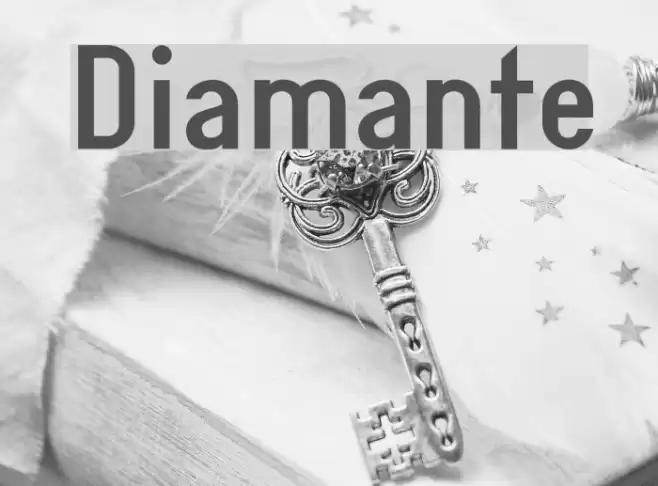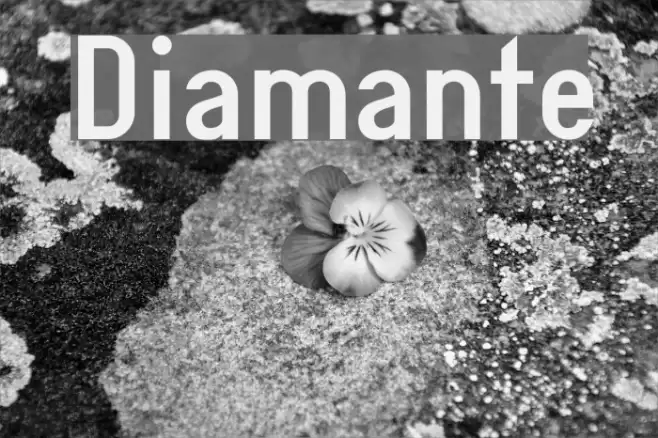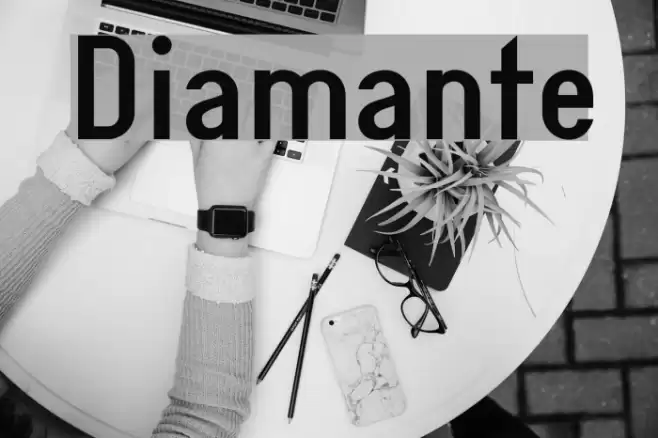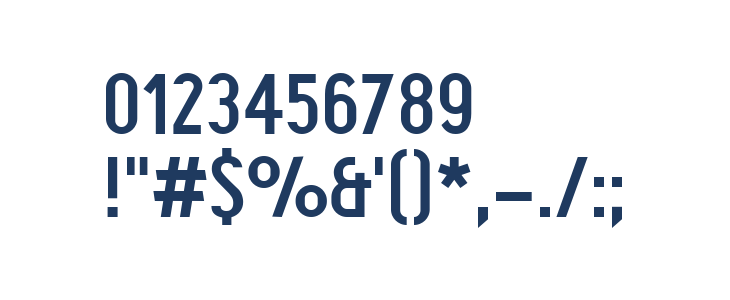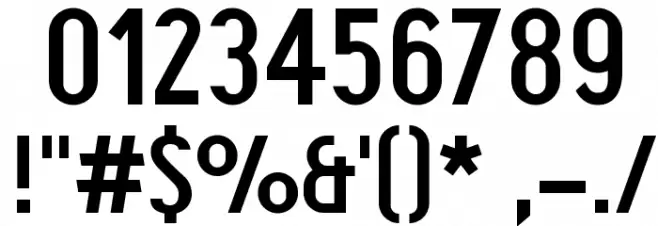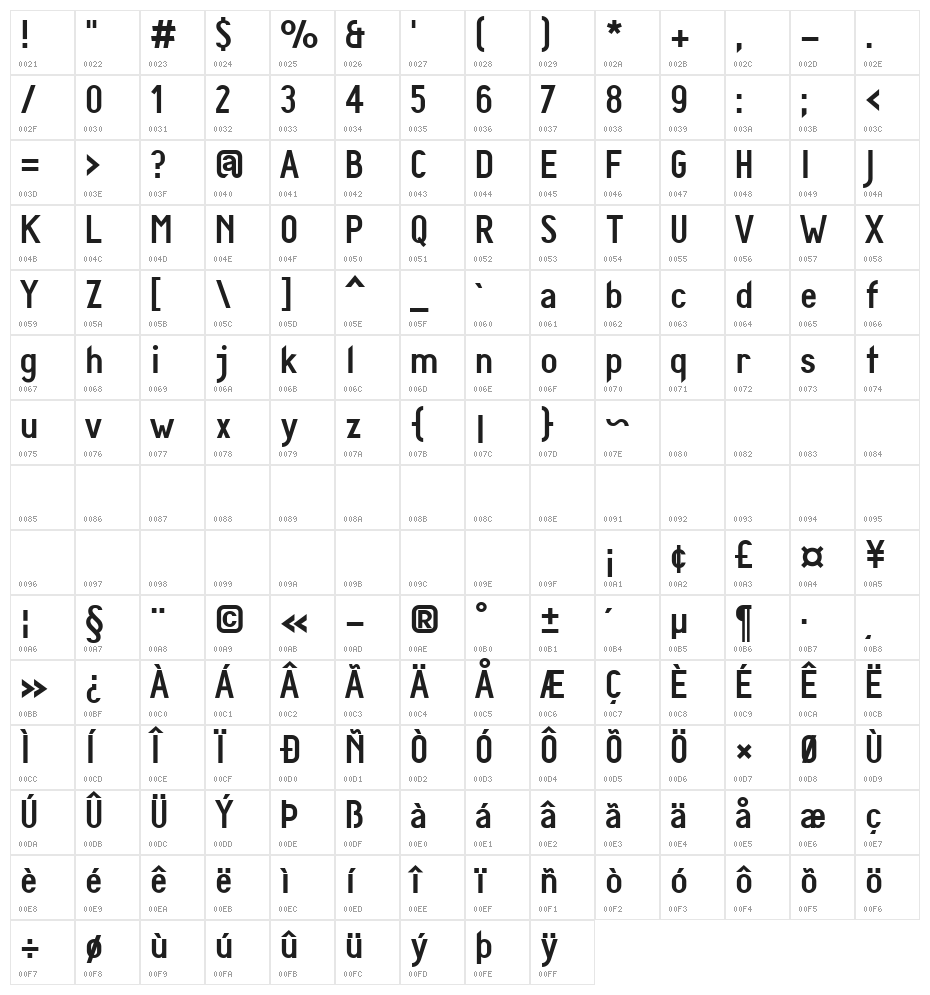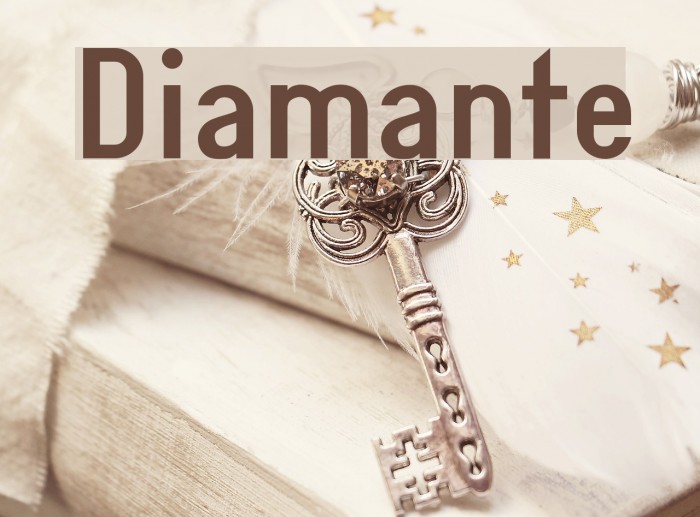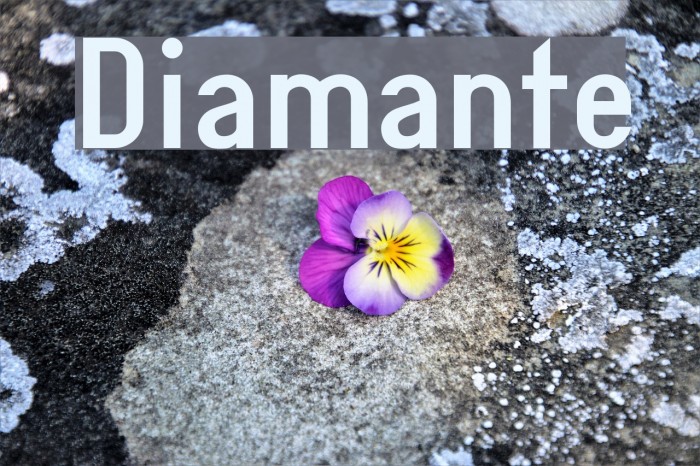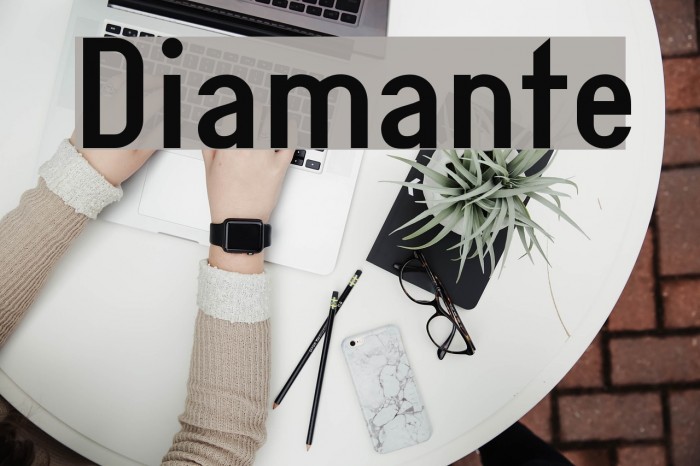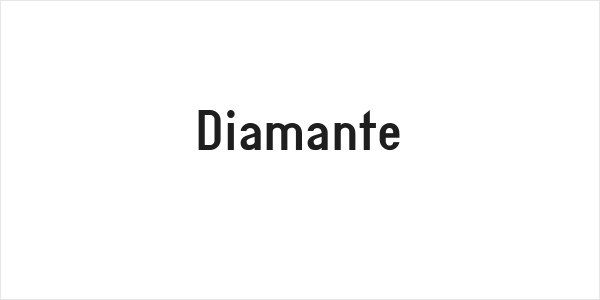
Diamante Font
Diamante Description
This font features a bold and modern sans-serif style with clean, straight lines and a geometric structure. The uppercase and lowercase letters maintain a consistent height and width, providing a uniform appearance. The numerals are clear and legible, matching the overall style of the alphabet. Special characters are included, maintaining the same boldness and clarity. The font's design is versatile, suitable for a wide range of applications, from digital to print media. Its strong presence makes it ideal for headlines, branding, and advertising, where a contemporary and impactful look is desired.
A bold, modern sans-serif font with a geometric structure from Uncategorized fonts.
- Proposed Projects: Ideal for branding, advertising, headlines, and digital media.
- Use Case: Headlines, Logos, Branding